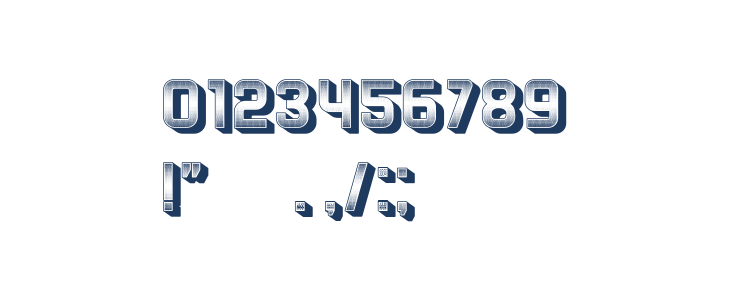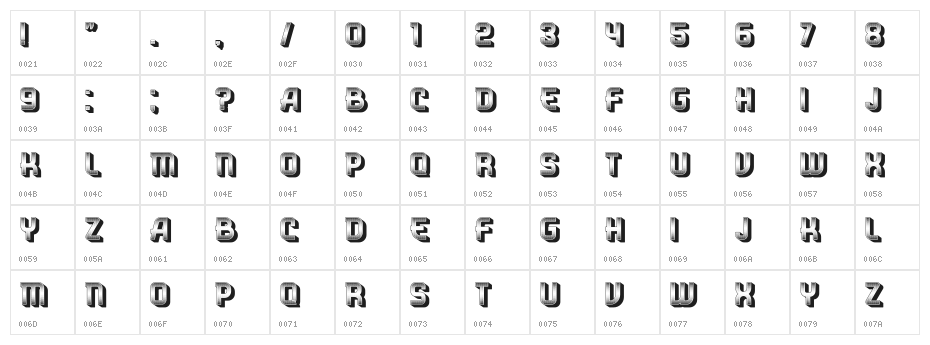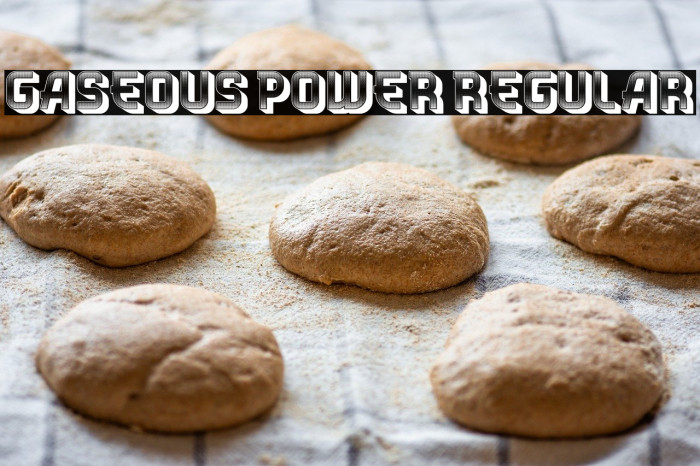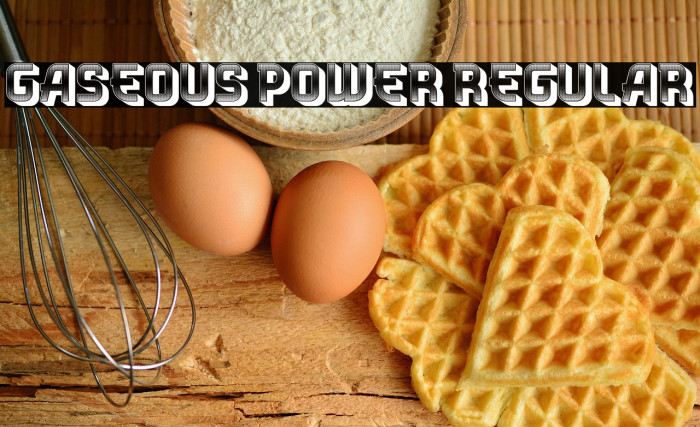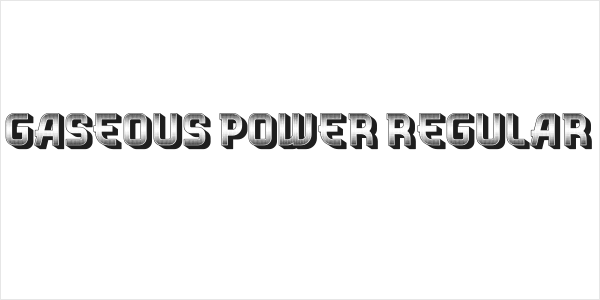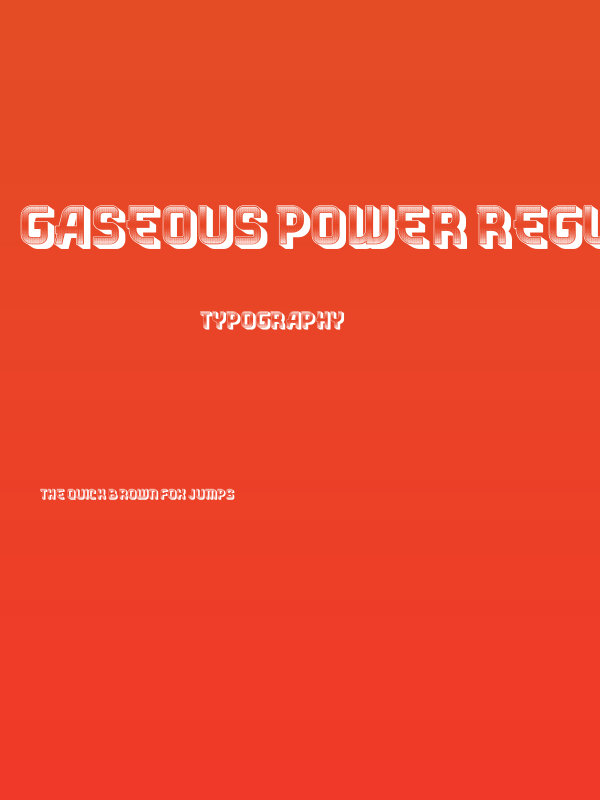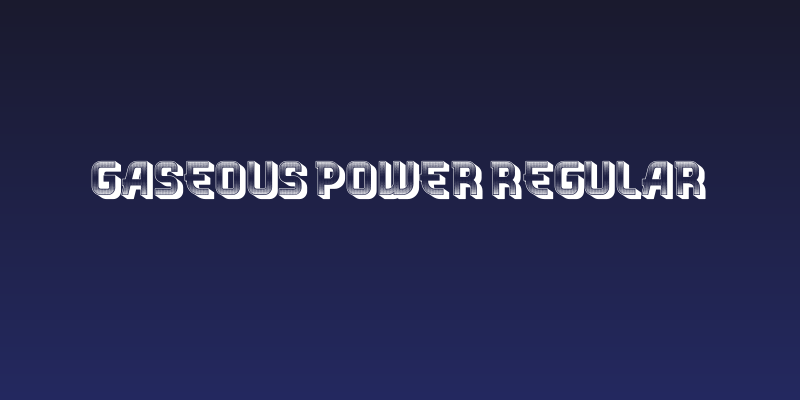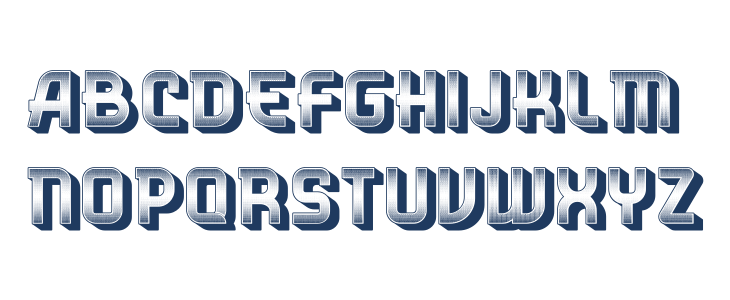
Gaseous Power Regular Font
Gaseous Power Regular Description
This font features a bold, three-dimensional design with a strong industrial feel. The letters are blocky and robust, with a distinct shadow effect that gives them a sense of depth and solidity. The style is reminiscent of vintage signage or retro-futuristic aesthetics, making it stand out with its unique texture and shading. Each character is meticulously crafted to maintain consistency across the alphabet, numbers, and special symbols. The font's boldness and intricate detailing make it ideal for projects that require a striking visual impact.
A bold, 3D font with an industrial, retro-futuristic style from Uncategorized fonts.
- Proposed Projects: Ideal for posters, logos, video game titles, and any project needing a bold, eye-catching typeface.
- Overall Style: Retro-Futuristic